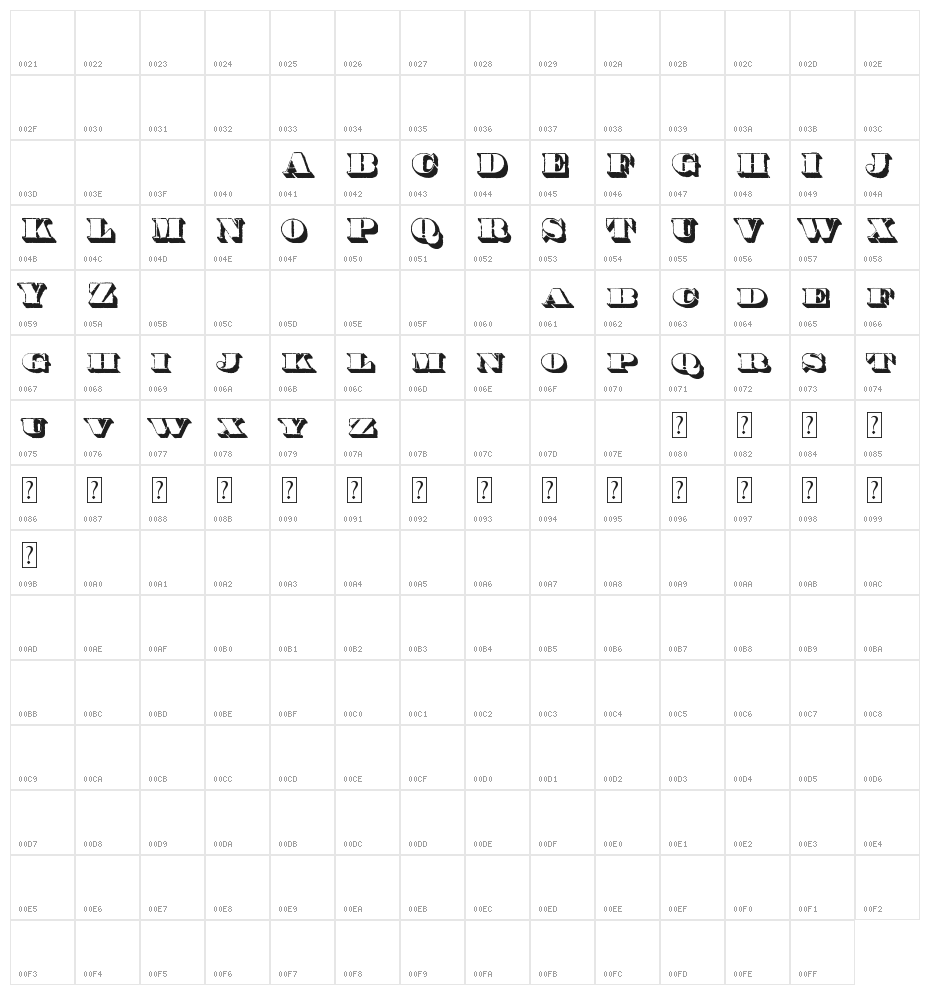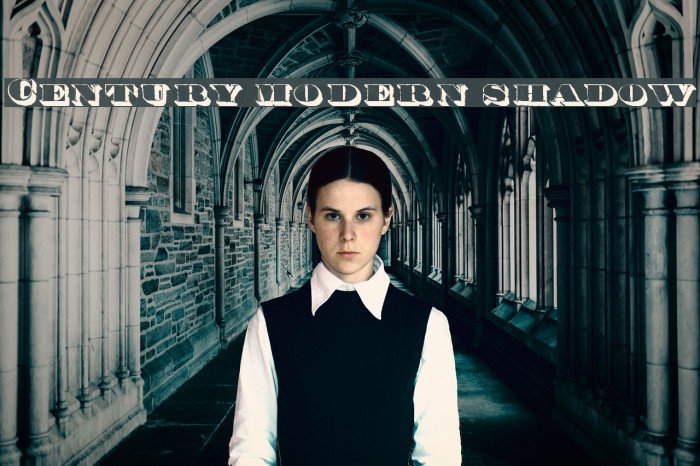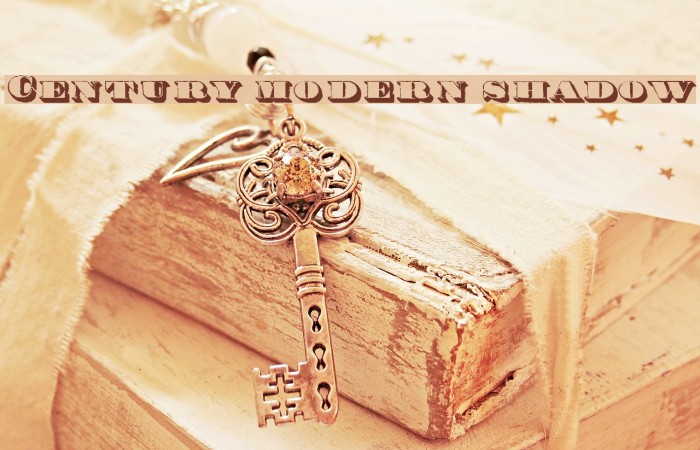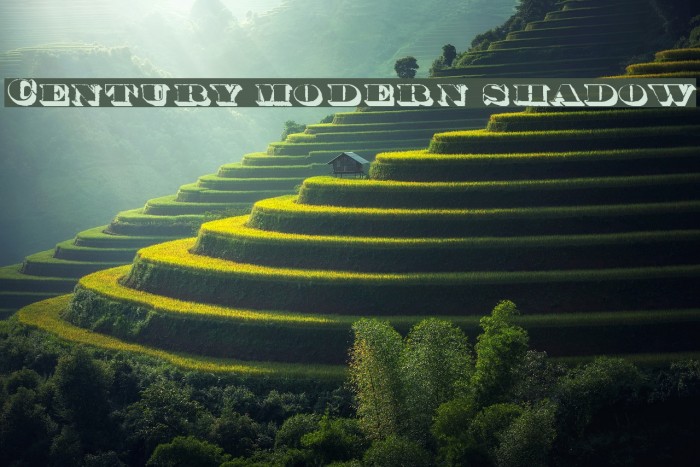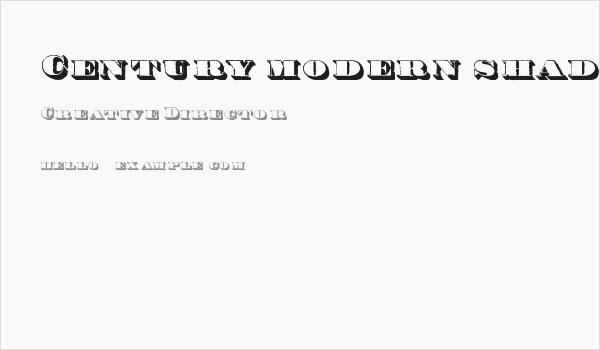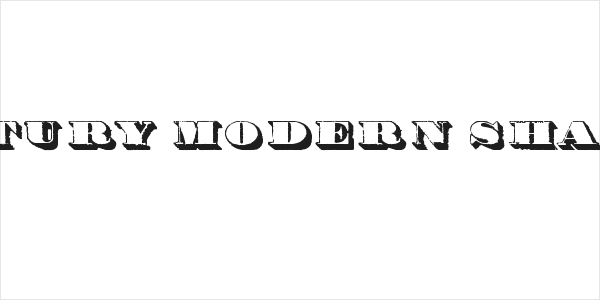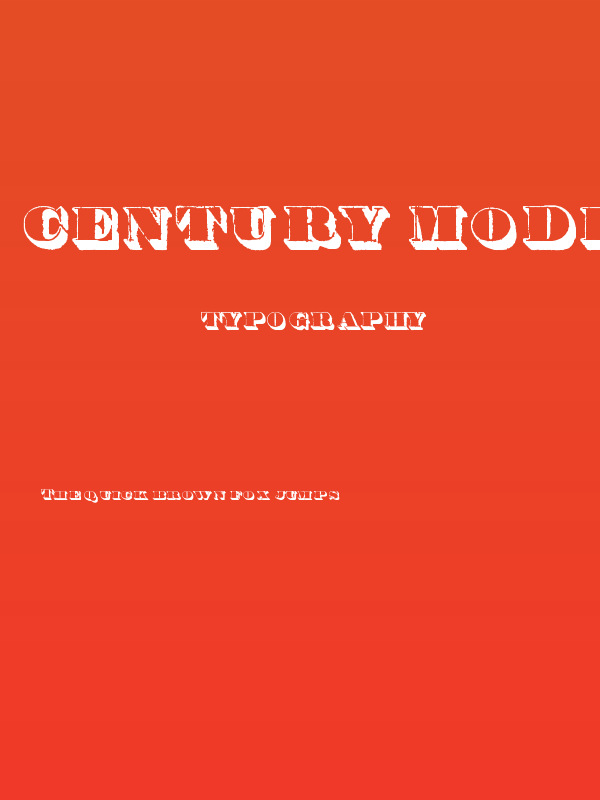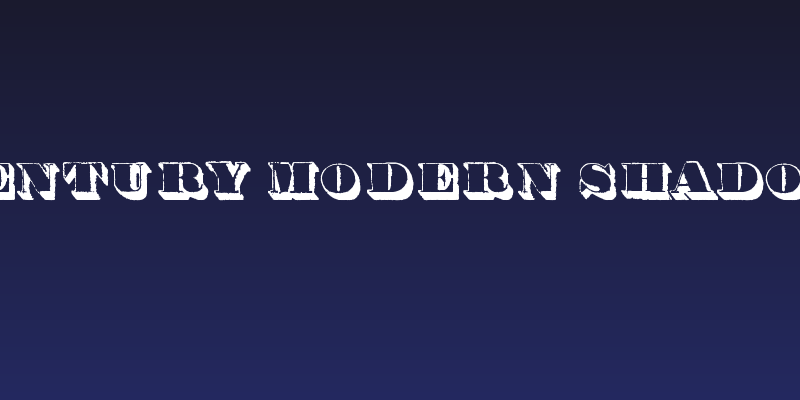
Century modern shadow Font
Century modern shadow Description
This font features a bold and striking design with a distinct shadow effect that gives it a three-dimensional appearance. The letters are uppercase, with a strong serif style that adds a classic touch. The shadowing is consistent across all characters, enhancing the depth and making each letter stand out prominently. The overall look is both vintage and modern, making it versatile for various design applications. The font's boldness is complemented by its medium contrast in stroke thickness, which maintains readability while adding visual interest.
| Overall Style | Vintage, Modern |
| Proposed Projects | Ideal for use in poster designs, headlines, branding projects, and any creative work that requires a bold statement. |